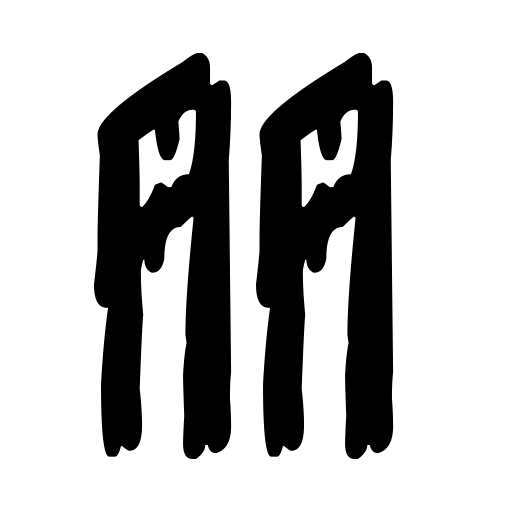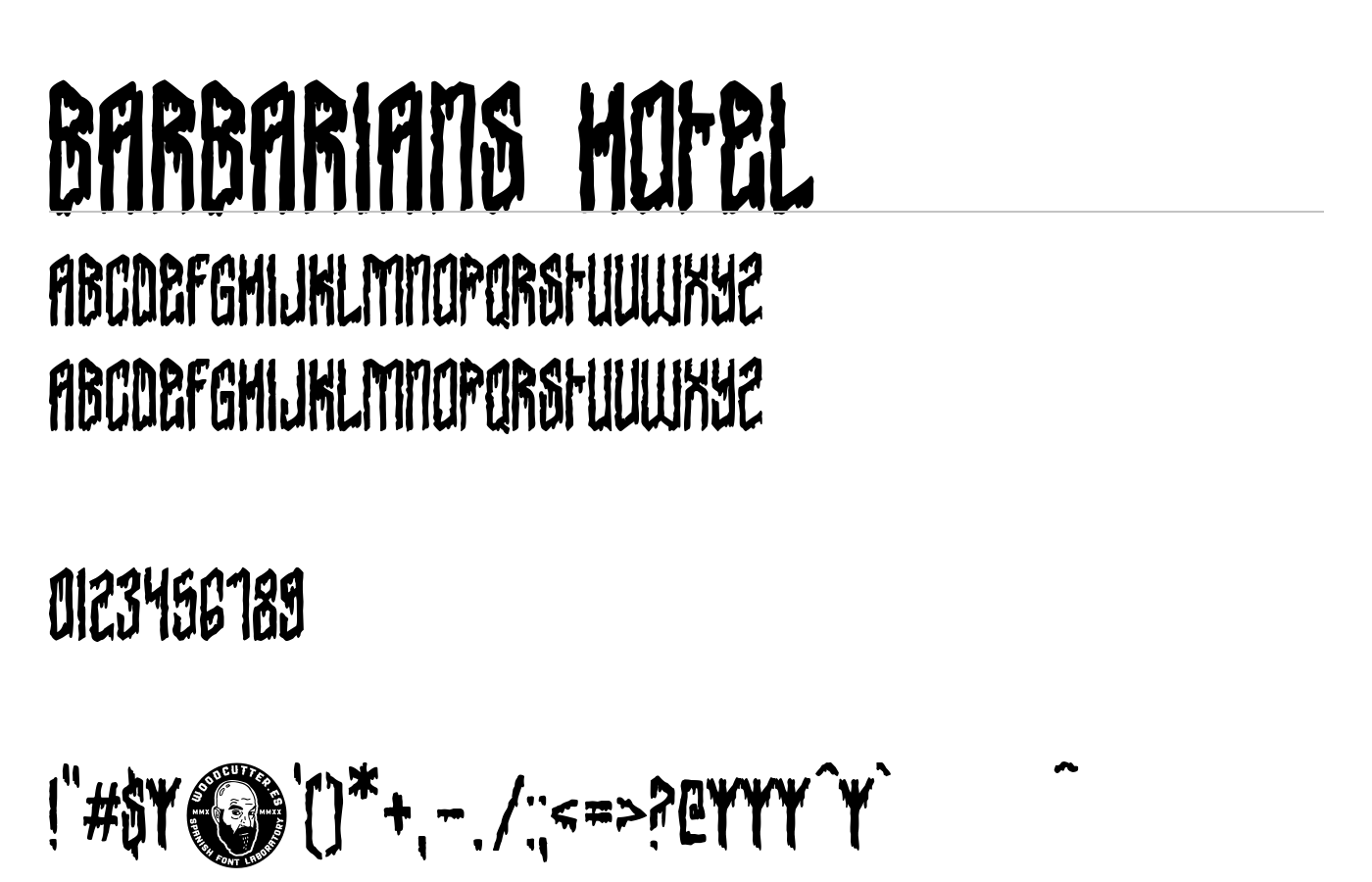
Barbarians Hotel is a bold and condensed display font with a rough, distressed texture that gives it a raw, edgy feel. Its tall, narrow letterforms and irregular, jagged strokes create a striking, rebellious personality, making it perfect for eye-catching headlines, posters, and branding in creative, alternative, or horror-themed projects where a gritty, unconventional look is desired.
Barbarians Hotel Font
About Barbarians Hotel Font